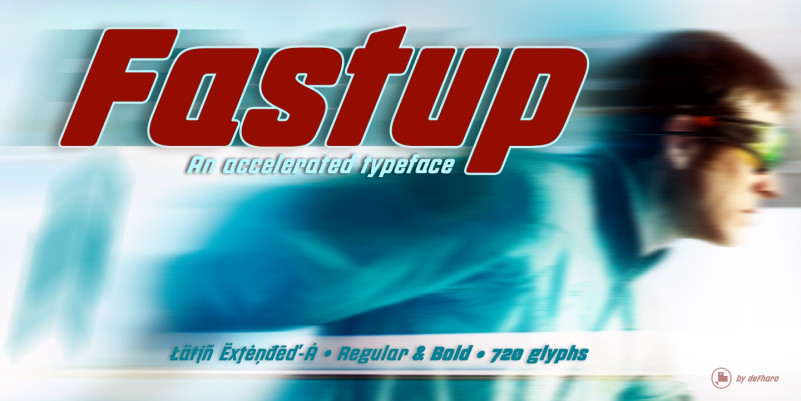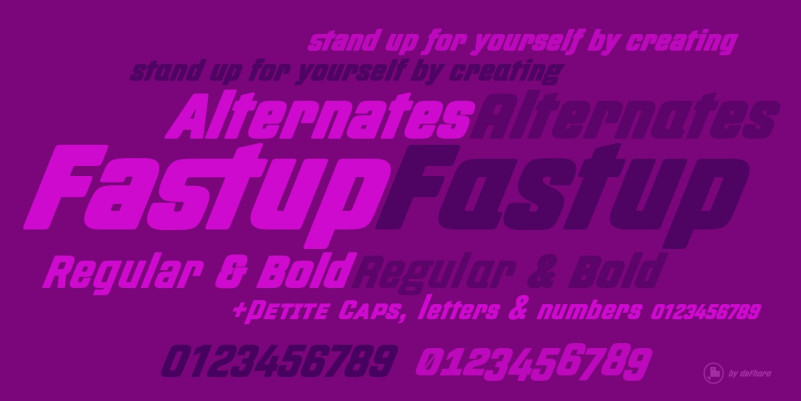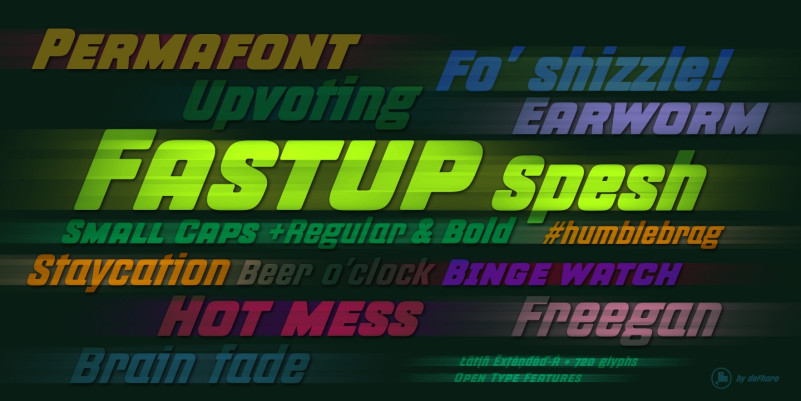
Fastup Font
Fastup Regular Font is available in two weights (Regular and Bold), geometric design fonts, with a rounded finish on the vertices that provides warmth, with short ascenders and descenders offers a more compact set of letters, the 22° inclination makes them more dynamic with a current and technological style, the careful configuration of the metrics and the Kerning achieve maximum legibility for these unique typefaces. The fonts include various alternate letters, various lowercase sets, and numbers. Check the attached pdf.
These fonts are specially designed for advertising and editorial or corporate design.